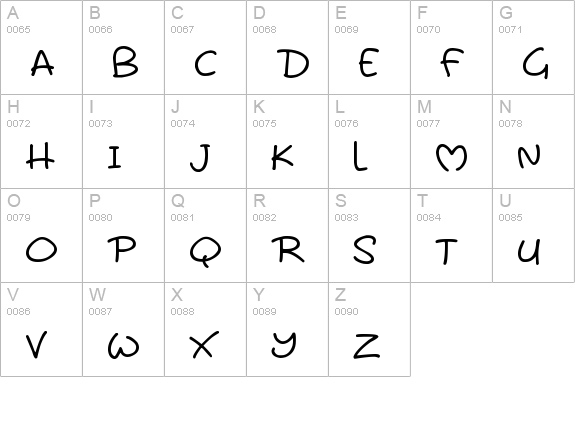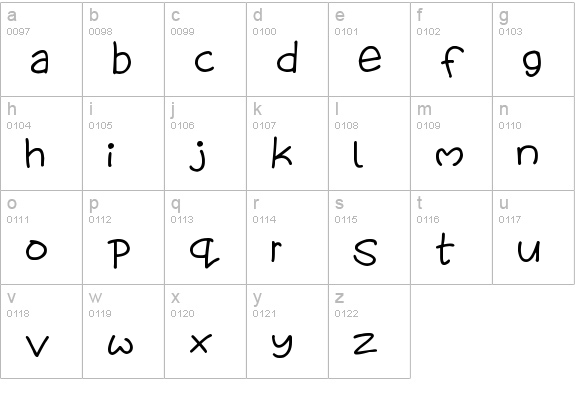
Lovebles Font Details
Lovebles is a free for personal use font in the Script > Handwritten category, designed by Darrell Flood. It has been downloaded 262 times and is available for Windows, Mac and Linux.
Lovebles font is a charming and whimsical typeface that exudes warmth and playfulness. Its soft curves and friendly appearance make it perfect for a variety of design projects, from greeting cards to branding and beyond. The Lovebles font is designed to bring a sense of joy and love to your creations, making it the ideal choice for any project that needs a touch of sweetness.